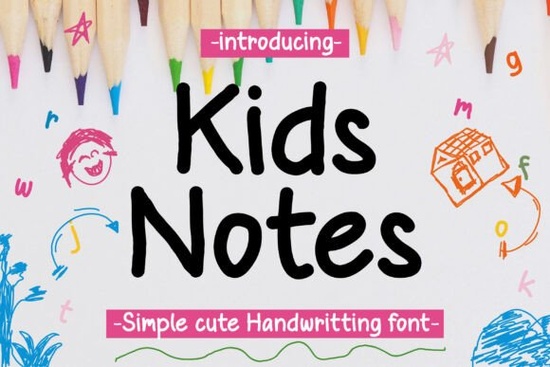
If you need a font that feels like a child just wrote it with a crayon, the Kids Daily Notes font is a straightforward choice. It’s a simple, readable handwriting typeface that avoids looking too polished or digital. Designers, crafters, print-on-demand sellers, and small businesses often reach for it when they want a genuine, unpretentious vibe – think handwritten notes, school projects, or anything that needs a warm, personal touch.
What makes Kids Daily Notes font different from other handwriting fonts?
Many handwriting fonts try to be stylish or quirky, but Kids Daily Notes stays close to how an actual child writes. The letterforms are slightly uneven, the spacing is loose, and there’s no forced “cute” curve. That honesty makes it useful for projects where you want the audience to feel a real human connection, not just a decorative effect.
It works especially well when combined with a solid background or a simple layout. You don’t need complex graphics – the font itself carries the emotion. If you’ve tried other childlike typefaces before and found them too messy or hard to read, this one strikes a good balance between authenticity and legibility.
Where can I use this handwriting font in my projects?
Kids Daily Notes font is flexible enough for both digital and print work. Here are a few places it fits naturally:
- Book covers and children’s story illustrations – the handwritten style feels like it belongs on a classroom poster or a bedtime story.
- Social media posts and quote graphics – especially for parenting, education, or lifestyle accounts where a personal note effect works.
- Logos and branding for kids’ products or classes – it signals approachability and playfulness without being cartoonish.
- Digital planners and printable journals – the font looks like handwritten entries, perfect for bullet journals or habit trackers.
- Birthday invitations and greeting cards – it adds a handmade feel that digital templates often lack.
- Photo albums and memory books – use it for captions or dated notes to keep the layout warm and casual.
If you need a more structured handwritten option for note-taking, Memo Sketch Font is another Script Font that leans toward a sketched look, while Kids Daily Notes stays closer to actual handwriting.
How does Kids Daily Notes compare to other script fonts like Youngboy or Whimsy Note?
Every script font has a different personality. Youngboy Font is bolder and more irregular – it feels like a child’s first attempt at printing letters, with some letters tilting more than others. Kids Daily Notes is steadier. It’s still imperfect, but the letters stay on the baseline, which makes it easier to use for longer text.
Whimsy Note Font is more decorative, with playful loops and swashes. It’s great for titles but can be tiring to read in paragraphs. Kids Daily Notes keeps things simple, so it works both as a headline and as body text in short projects.
If you want a rounded, friendly look without any sharp edges, Baloo Font is another Script Font option – it’s bouncy but still structured. Kids Daily Notes is more grounded, which some designers prefer for printable products like worksheets or chore charts.
Finally, Beauty Gingerbread Font has a decorative, cookie-like feel that works best for holiday or bakery branding. Kids Daily Notes is more neutral, so it can be used year-round for a wide range of kid-friendly designs.
Is Kids Daily Notes font good for digital planners and print-on-demand products?
Yes, especially if you sell on platforms like Etsy or Amazon KDP. The font’s clear letterforms make it a strong candidate for:
- Digital planners – use it for daily notes, to-do lists, and sticker labels. The handwriting look blends into the page without feeling like a typed font.
- Print-on-demand notebooks – covers with Kids Daily Notes say “handmade” better than any script with perfect curves.
- Classroom printables – alphabet posters, name tags, and reward charts all benefit from a font that students can easily read and mimic.
- Kid’s party printables – banners, cupcake toppers, thank-you cards – the font keeps everything cohesive without extra decoration.
Because it’s a simple children’s handwriting font, it also works in black and white. You don’t need colors or embellishments to make it look good – sometimes the plain version is the most authentic.
What should you check before using Kids Daily Notes font in your next project?
Before you start designing, look at the font’s character set. Some handwriting fonts miss basic punctuation or numbers. Kids Daily Notes includes standard letters and numbers, but if you need special symbols or accented characters, double-check the included glyphs. Also, test it at different sizes. At very small sizes (below 10pt), the hand-drawn feel can make text harder to read, so use it for headlines or short notes rather than long paragraphs.
Once you’ve tried it, you’ll quickly see why designers keep coming back to this simple, no-fuss handwriting font for projects that need a childlike touch without looking messy.